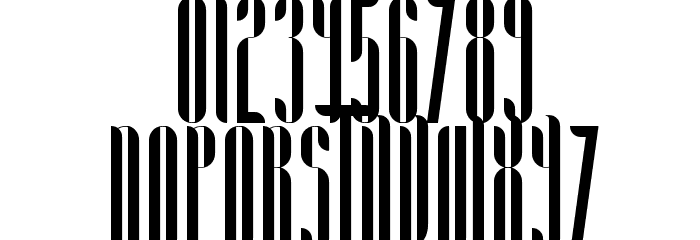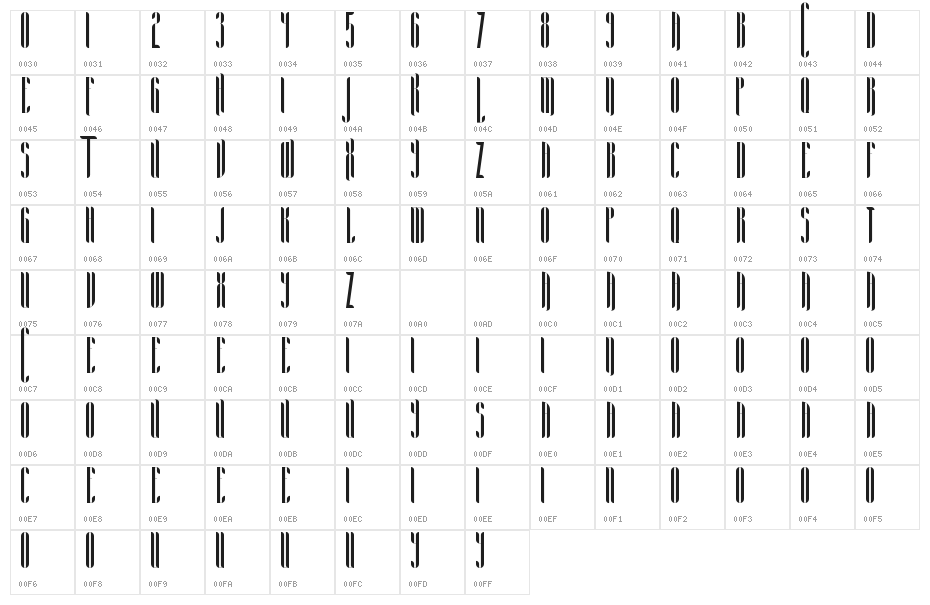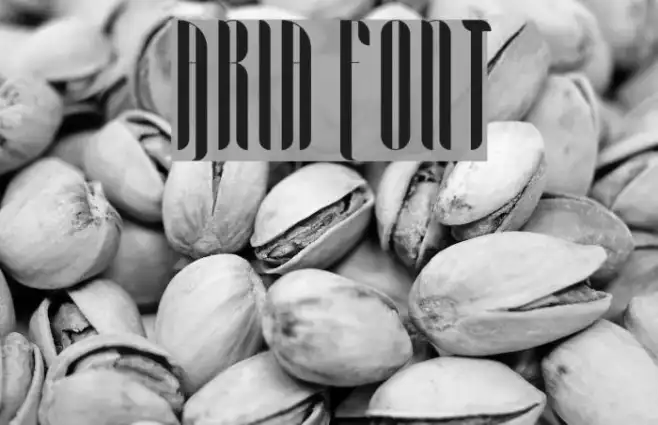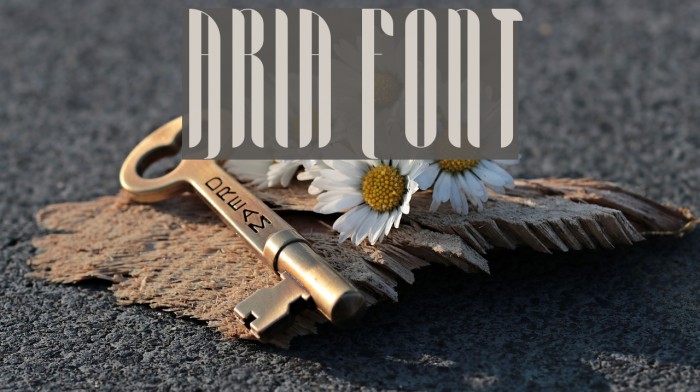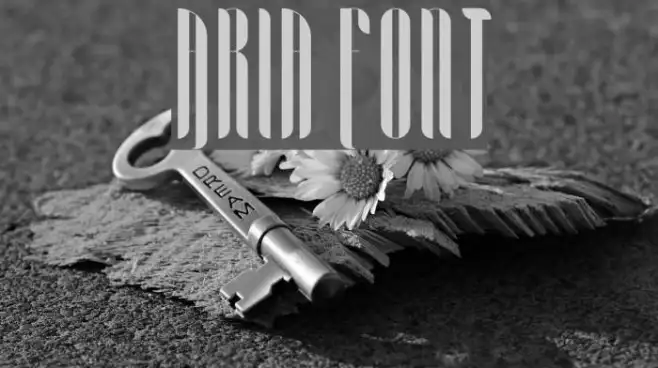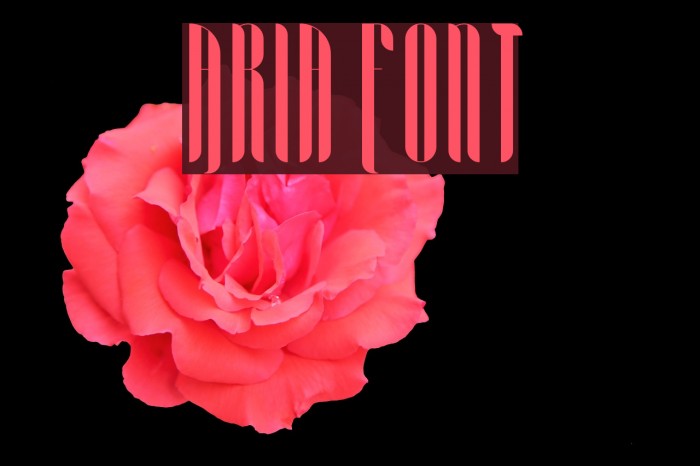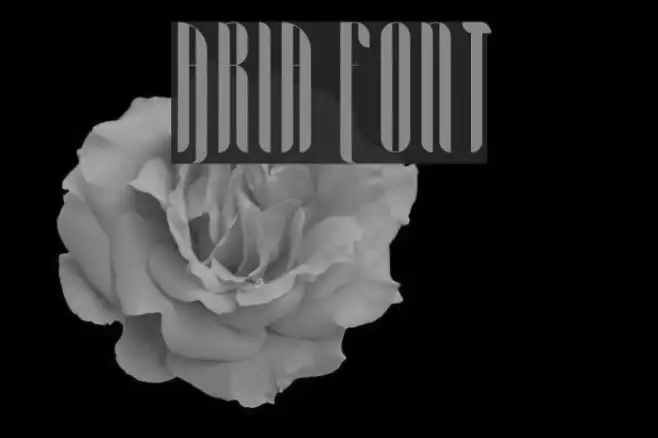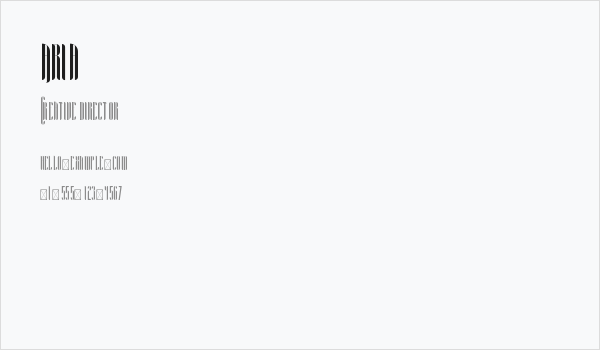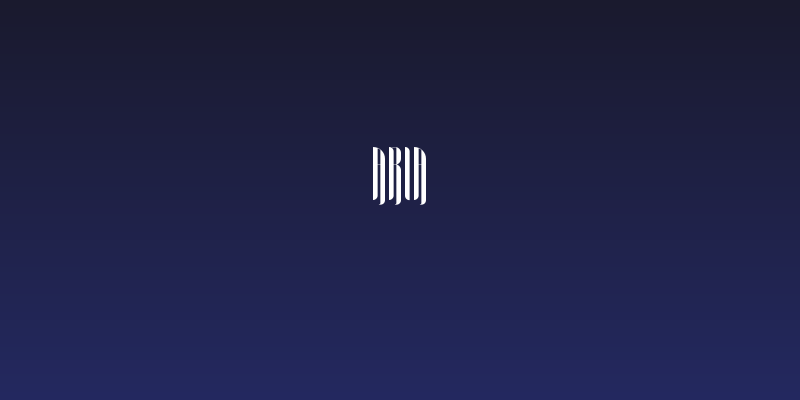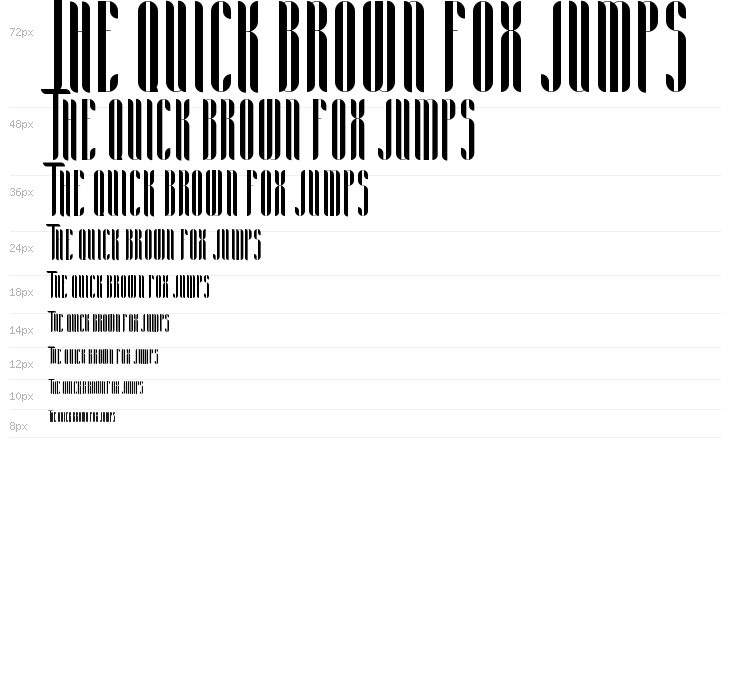
Aria Font
Aria Description
This font features a highly condensed and elongated design, characterized by its tall, narrow letterforms. The strokes are bold and consistent in width, creating a striking visual impact. The vertical emphasis is pronounced, with minimal spacing between characters, enhancing its compact appearance. The font's style is modern and geometric, with clean lines and a uniform structure. It is particularly suited for creating a dramatic and attention-grabbing effect, making it ideal for headlines or display purposes where space is limited but impact is essential.
| Proposed Projects | Ideal for posters, magazine covers, branding, and any project requiring a bold, modern look. |